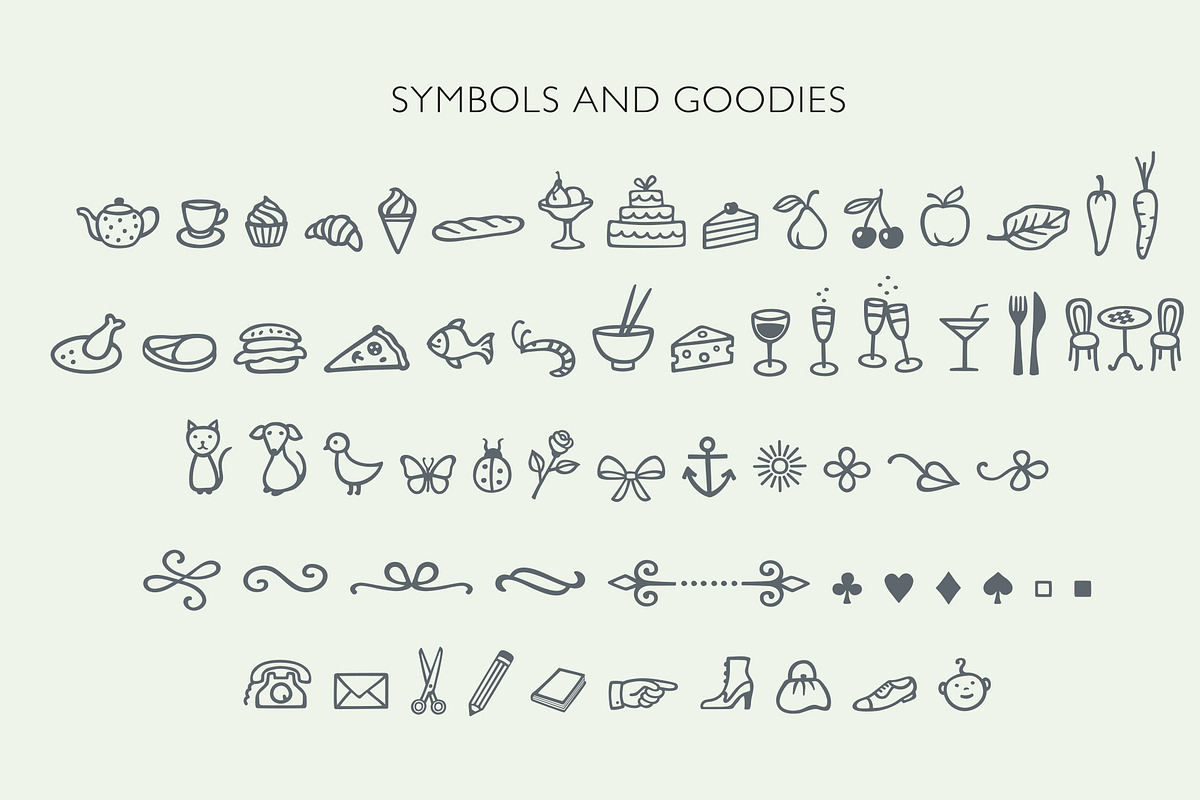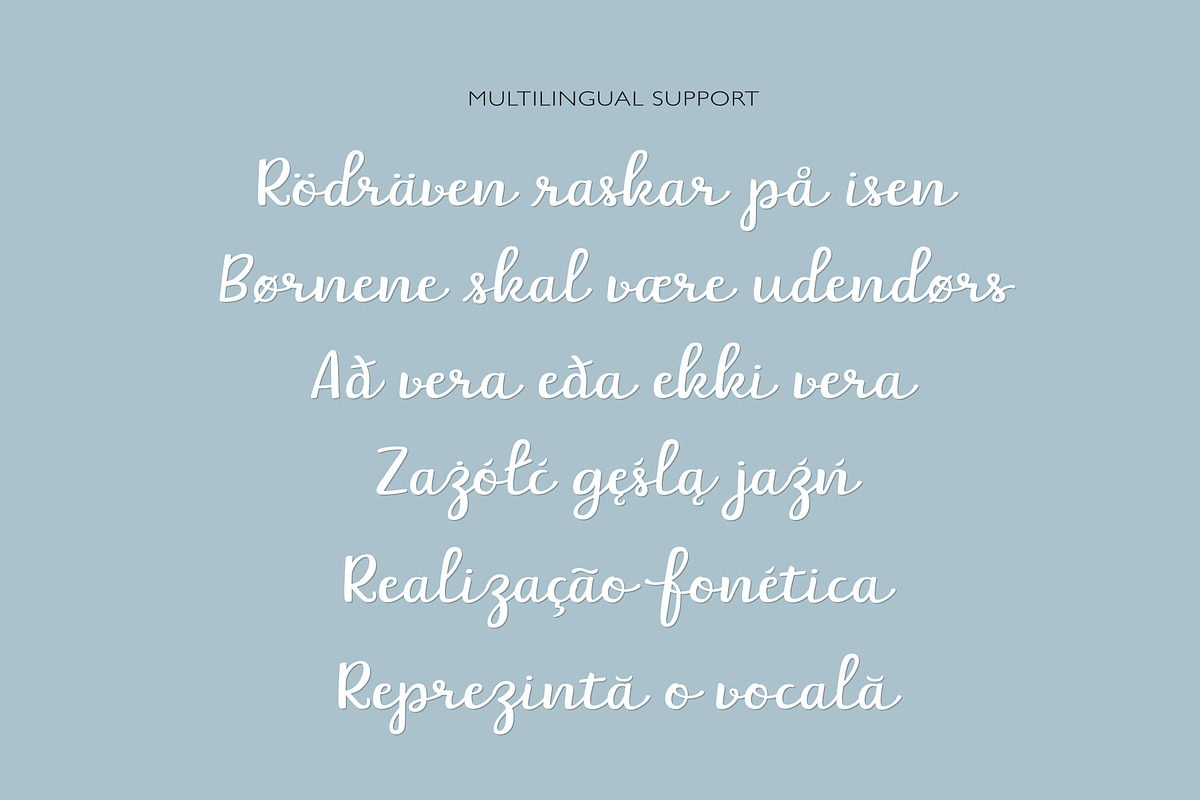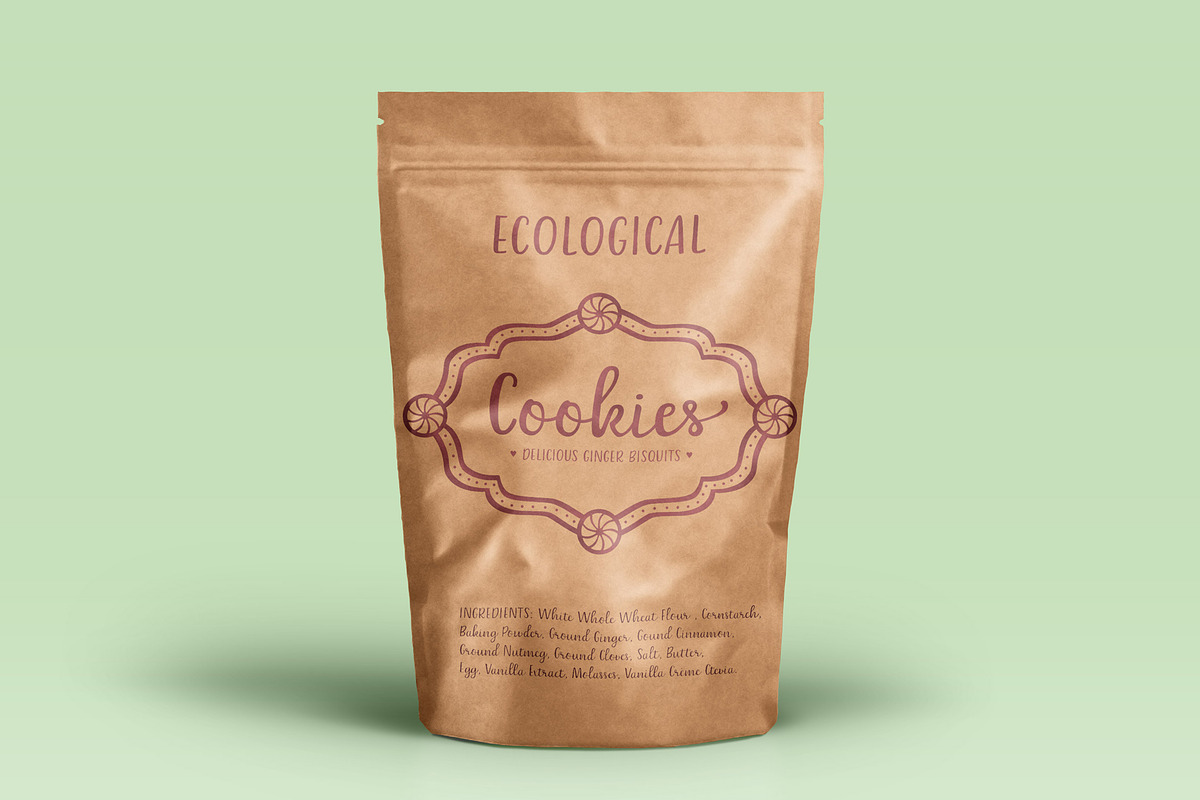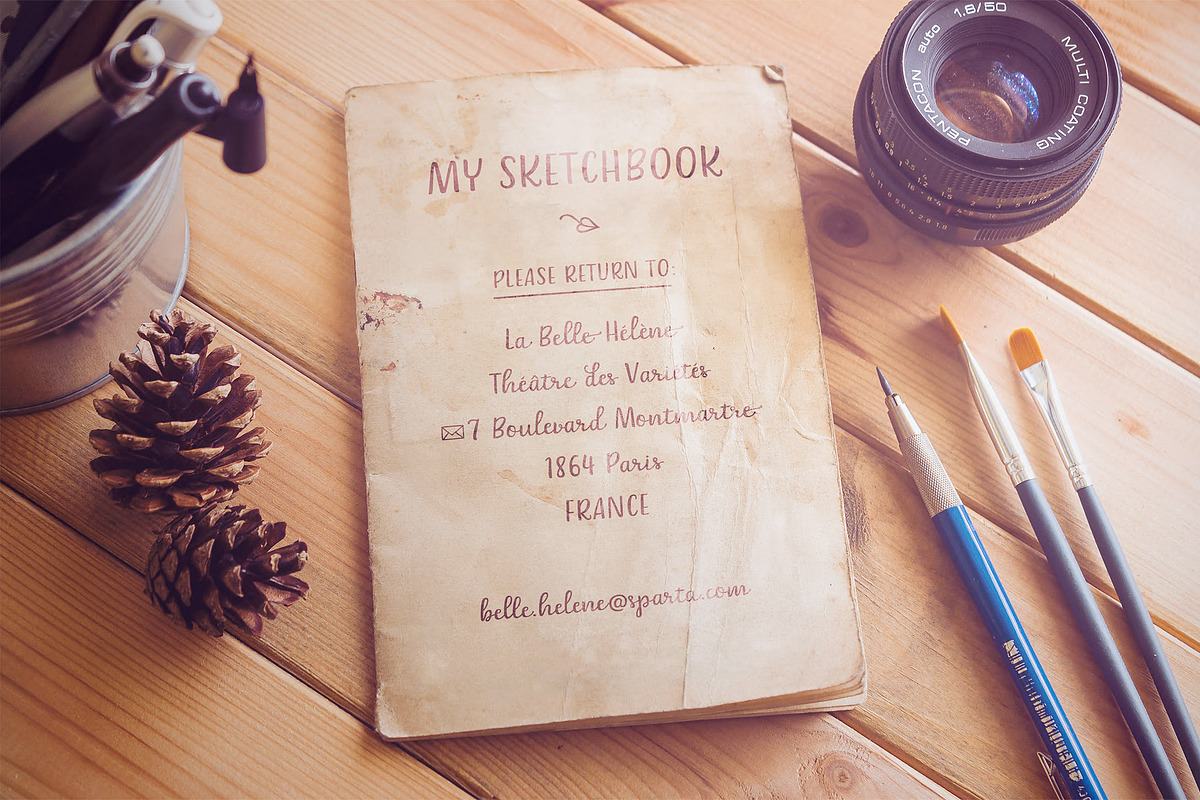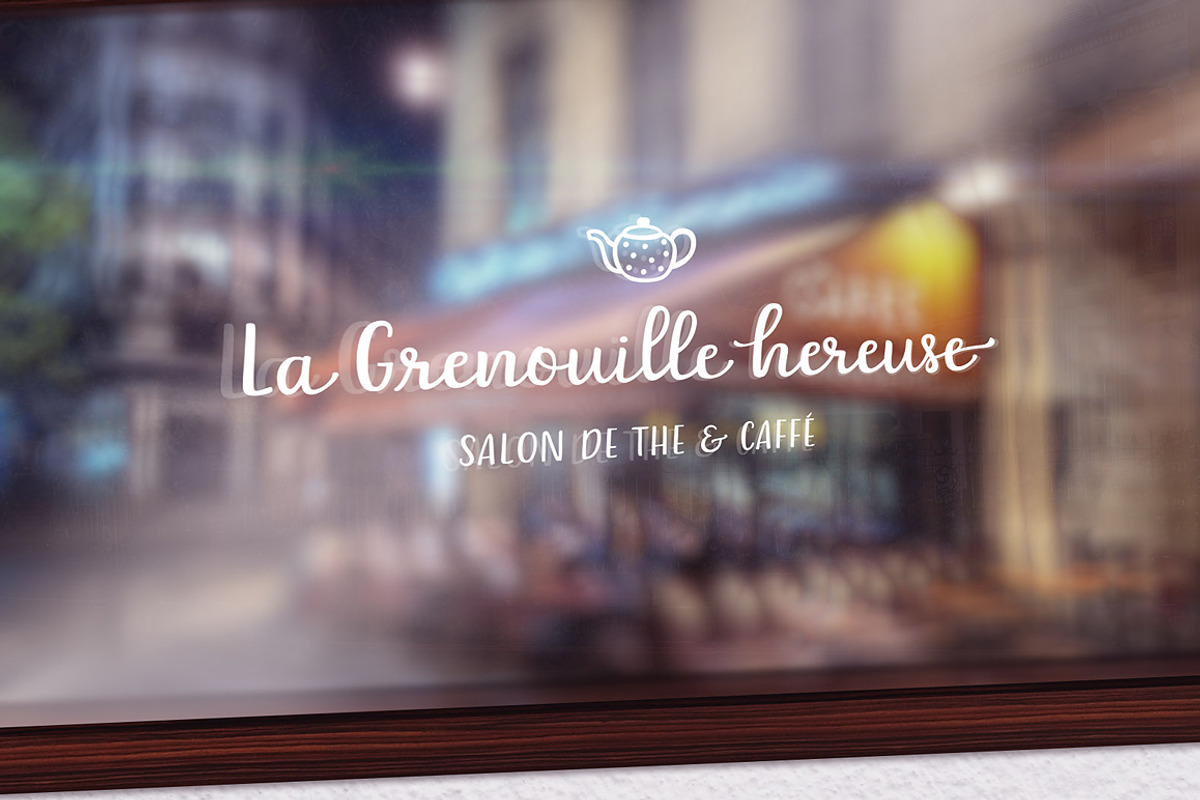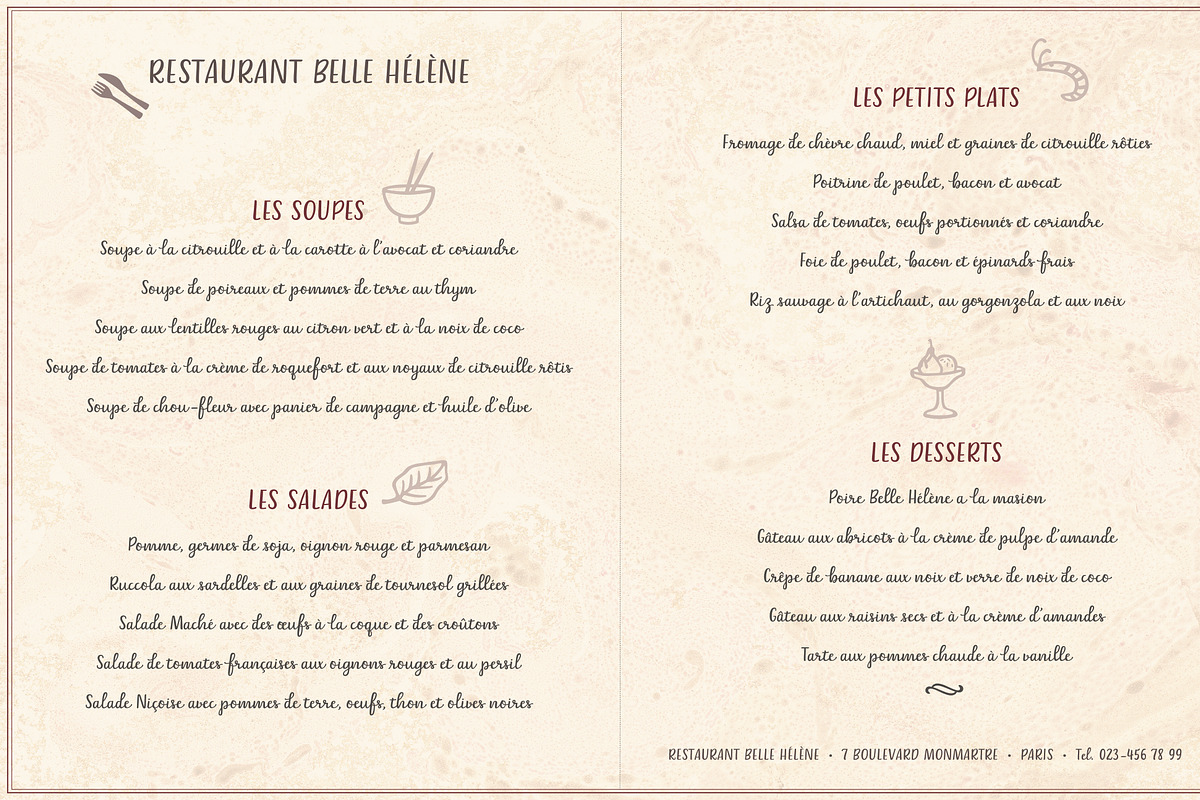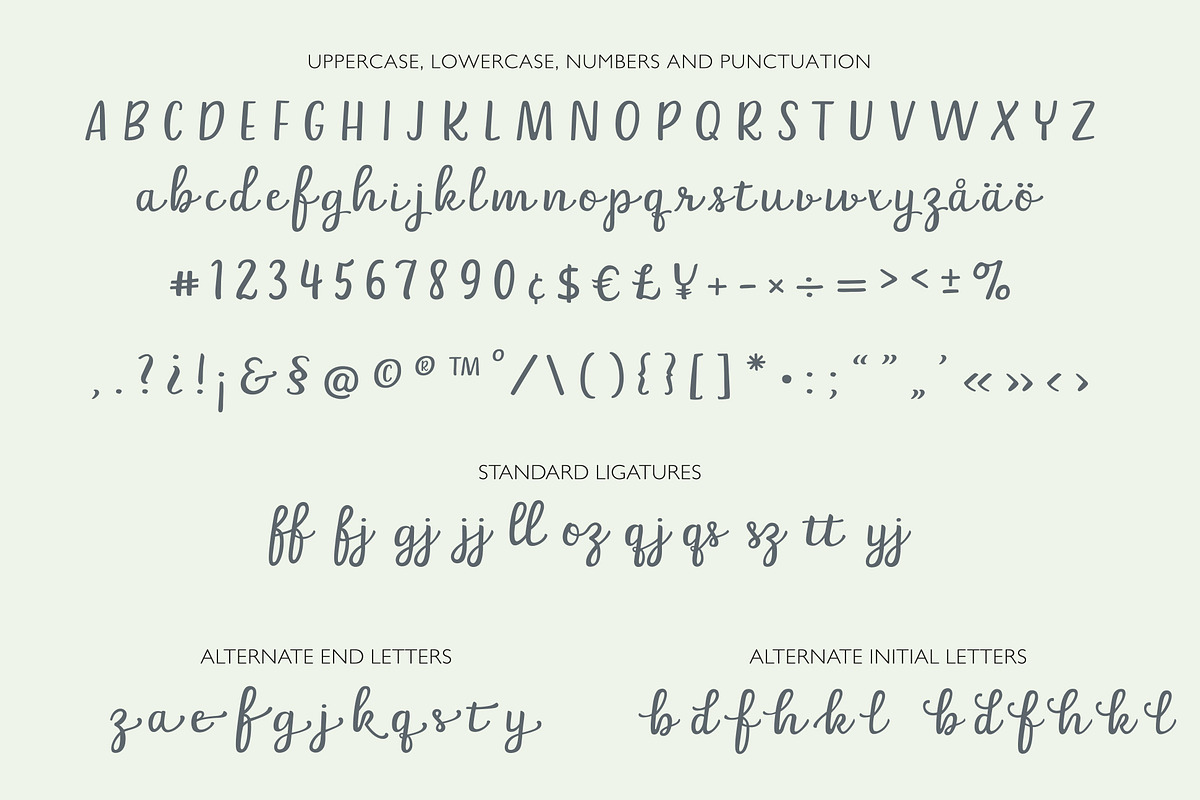
Belle Helene a Script & Symbols Font
Belle Helene is a calligraphic script and symbols font based on handwritten brush letters. Inspired by the famous french dessert with the same name (Wine Cooked Pears with Vanilla Ice Cream and Chocolate Syrup). This soft and smooth shaped font is suitable for restaurants, cafes, shops, bakeries, menus, wedding stationary or wherever a warm and informal feeling is required.
TIPS! To create a visual contrast and make the best of Belle Helene, combine her with a classic thin sans serif font.
Belle Helene comes with:
Uppercase sans serif capitals
Lowercase script letters
Numerals and Punctuation
Several Contextual alternates (Alternate End Letters and Alternate Initial Letters
62 Symbols and Goodies to play around with to spice up your designs.